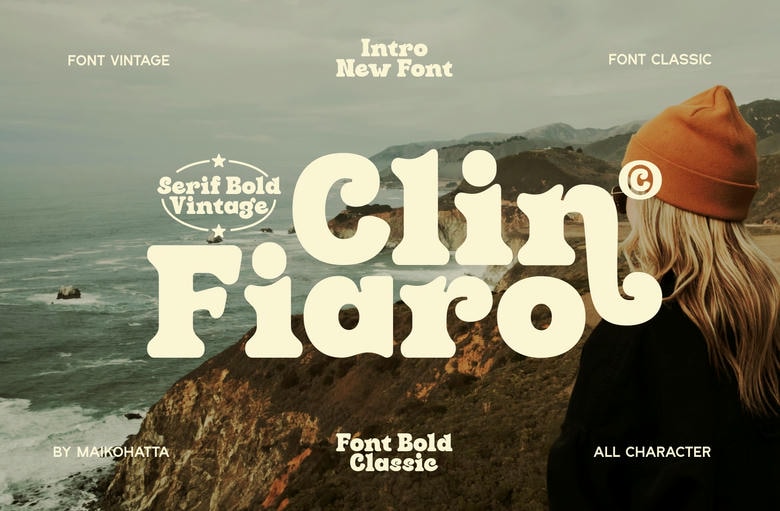
Clin Fiaro Font
Introducing our new product Clin Fiaro is a Serif Bold Vintage Font. This font features a balanced proportion of stroke thickness and fineness, creating attractive and easy-to-read visuals. This modern serif style is often characterized by a bold distinction between thick and thin lines, providing a touch that is understated but still stands out.
Clin Fiaro Serif Font